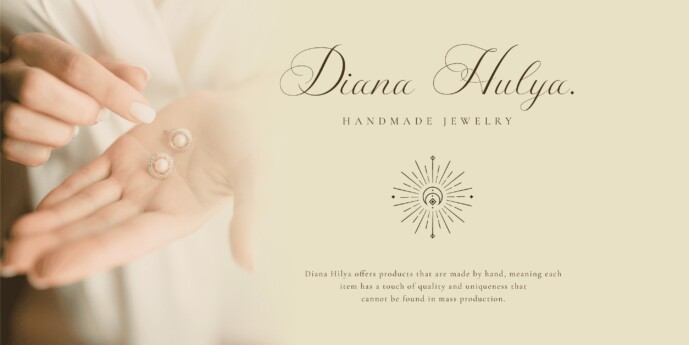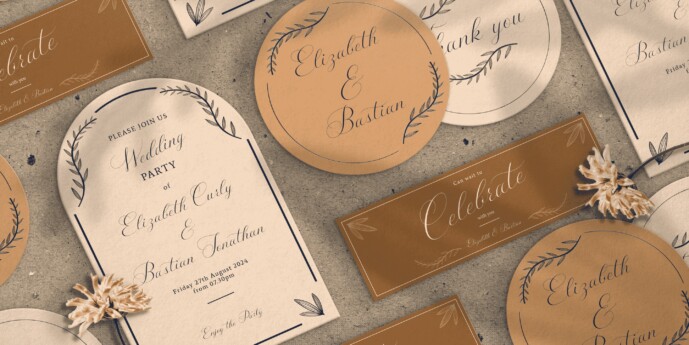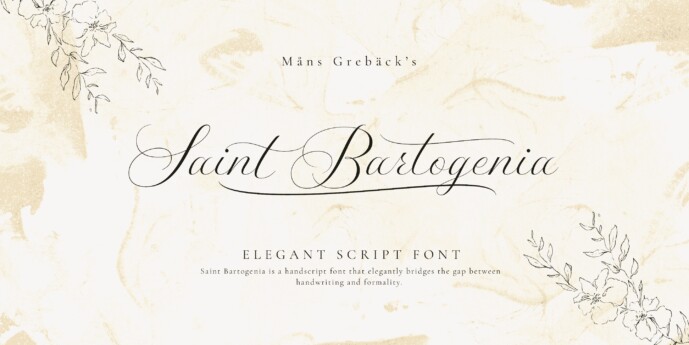
Saint Bartogenia Font
Designer: Mans Greback
Saint Bartogenia Font is a handscript font that elegantly bridges the gap between handwriting and formality.
The thin, delicate lines of Saint Bartogenia create a sense of sophistication and grace, making each character swirl across the page like a light wind.